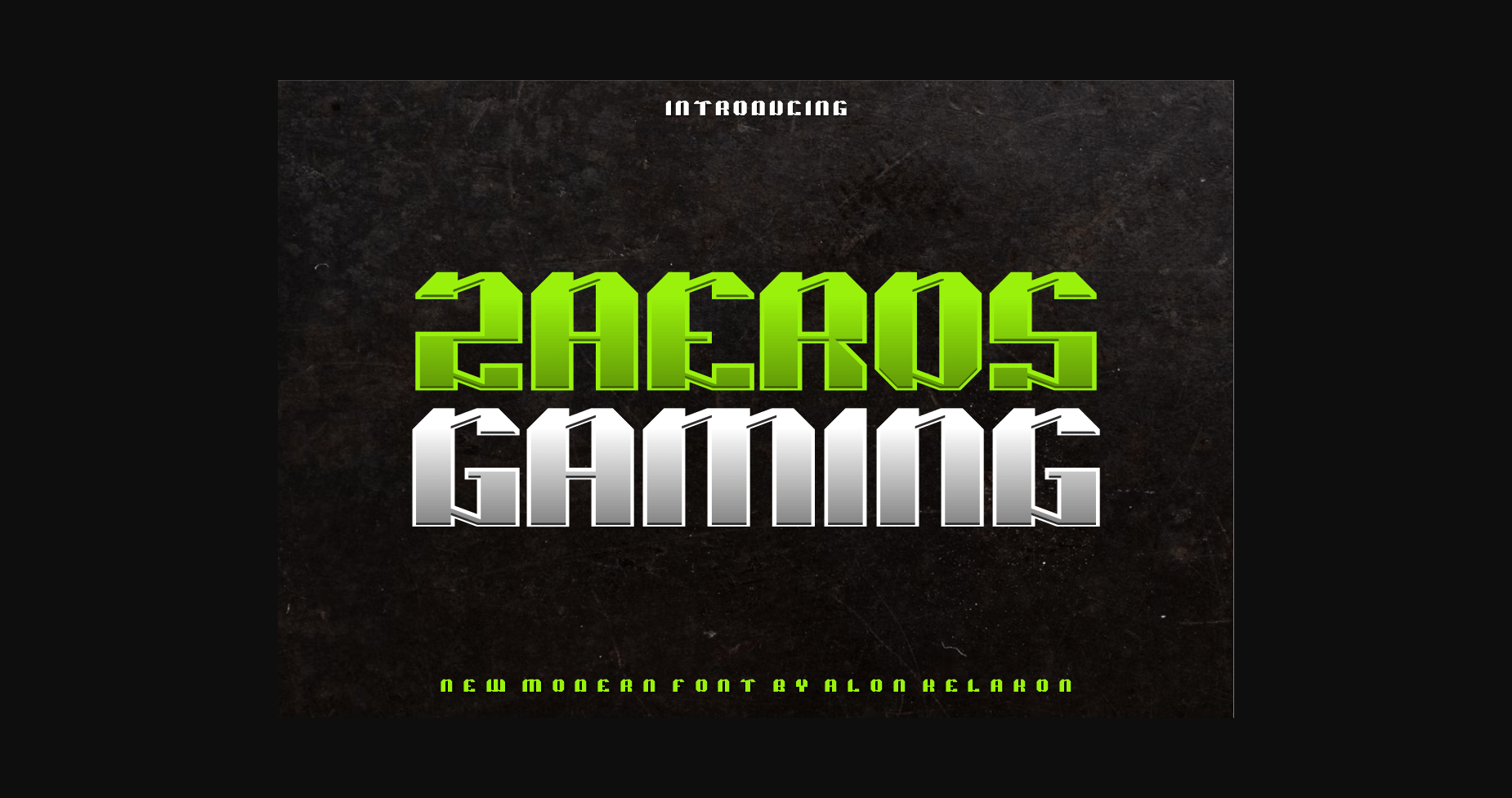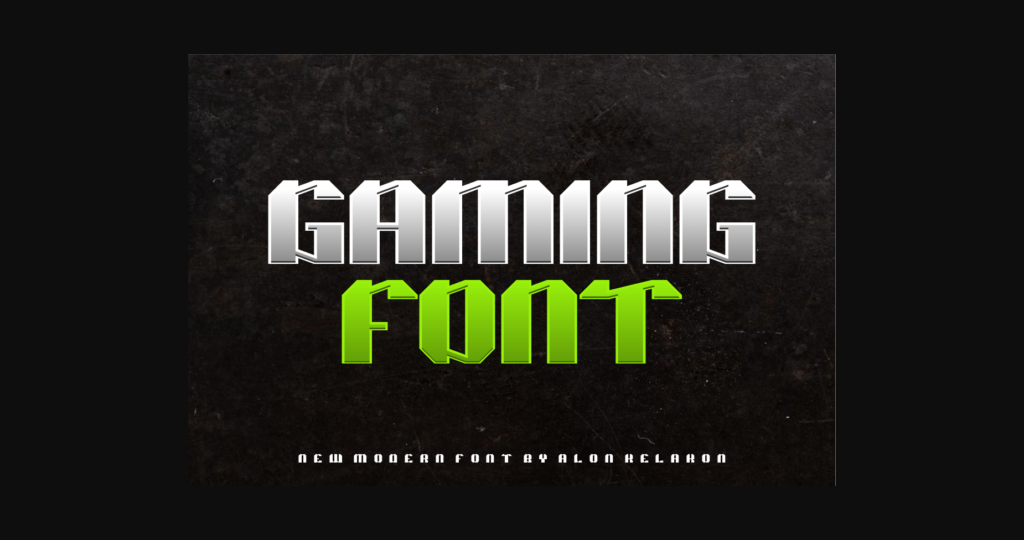
About Zaeros Gaming Font
Zaeros Gaming is a futuristic font, a font inspired by the visual of technology that we can find in logos, sci-fi movies, games, and the present gadgets. Designed with minimalist style and unique letterforms, a perfect choice to use on logos, labels, posters, packaging, books, movies, presentations, games, and much more!